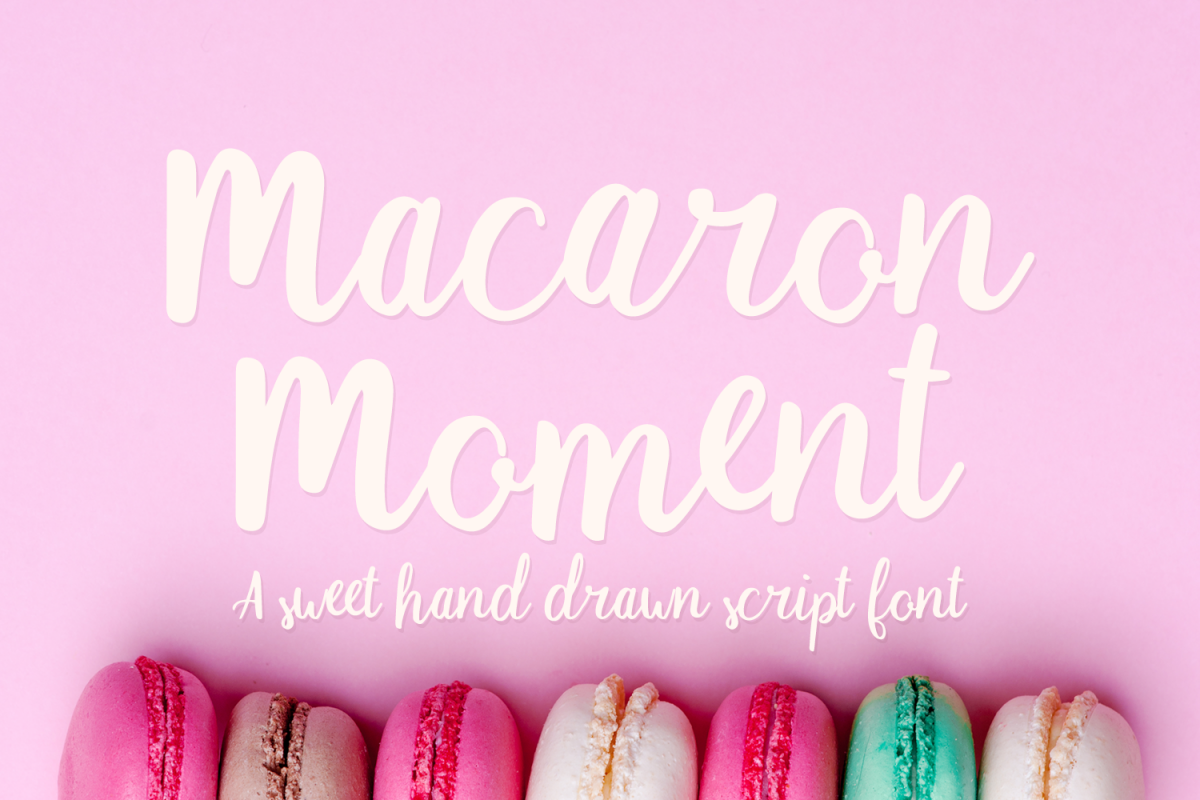
Macaron Moment - a sweet hand drawn script font
Macaron Moment is a sweet hand-drawn script font. It is an expressive display font, with complementary open type features such as ligatures, discretionary ligatures, and stylistic alternates.
This tasty typeface is perfect for packaging, business cards, branding, or t-shirts.
This font has 369 glyphs total, including:
8 ligatures
2 discretionary ligatures
7 stylistic alternates